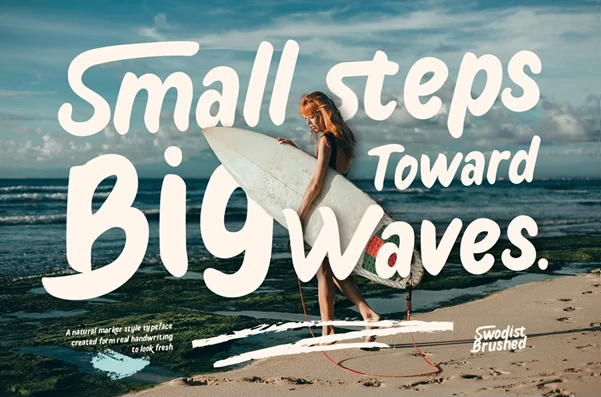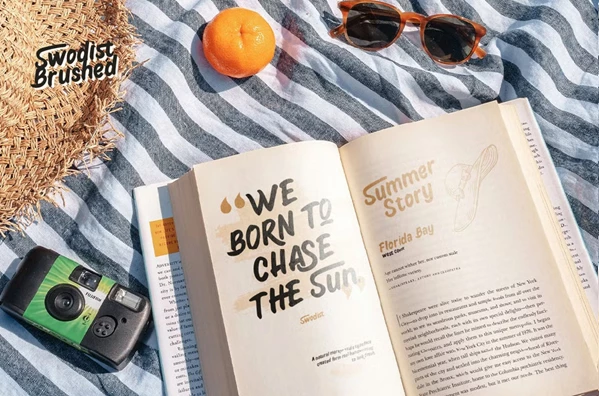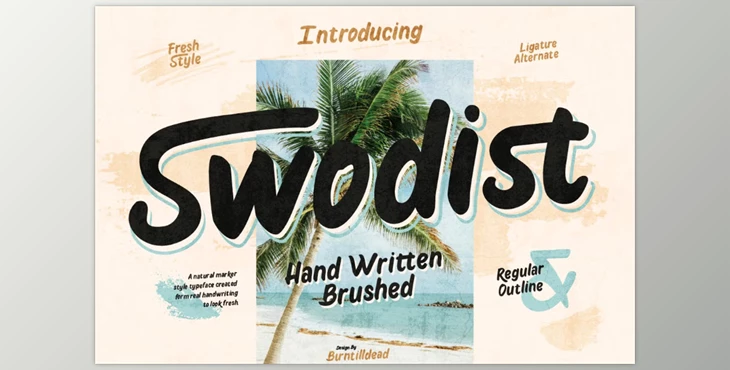
Swodist Font:
Swodist is one of a kind brush typeface that captures the essence of contemporary style while retaining some classic elements. Bold soft brush strokes give a natural and expressive touch to designs enhancing their appeal which makes them suitable for a variety of artistic creative works. Be it branding, logos, posters or book covers, Swodist is offered in two styles, Regular and Outline, and both are brimming with numerous alternates and ligatures to aid the user’s designing process. The font’s multilingual support increases its usability all around the world.
Some great features of Swodist Font:
- The alphabetic characters consists fully A-Z in both upper and lower cases.
- Numerical characters and punctuations are also fully set.
- Alternate characters are included for diverse styling options.
- Smoother and more natural letter combinations are supported by ligatures.
- Languages are varied so international usage is supported.
- Easy map navigation is provided by the Comprehensive Swodist Characters Map.